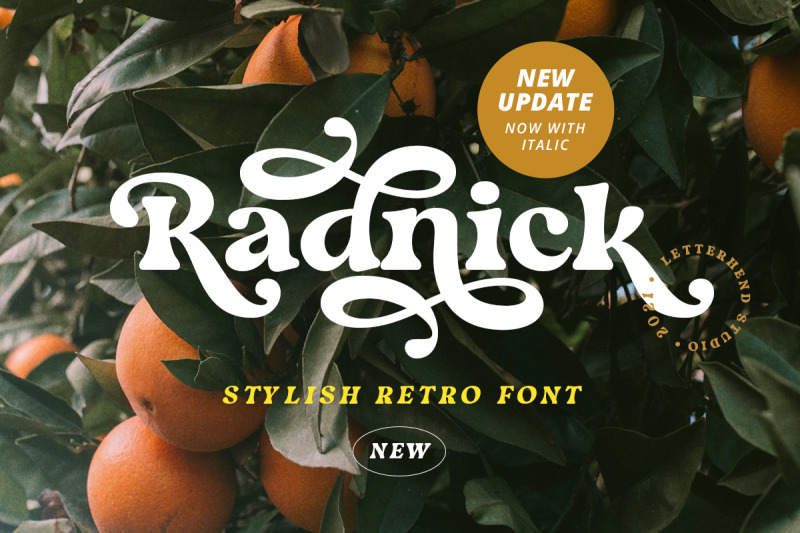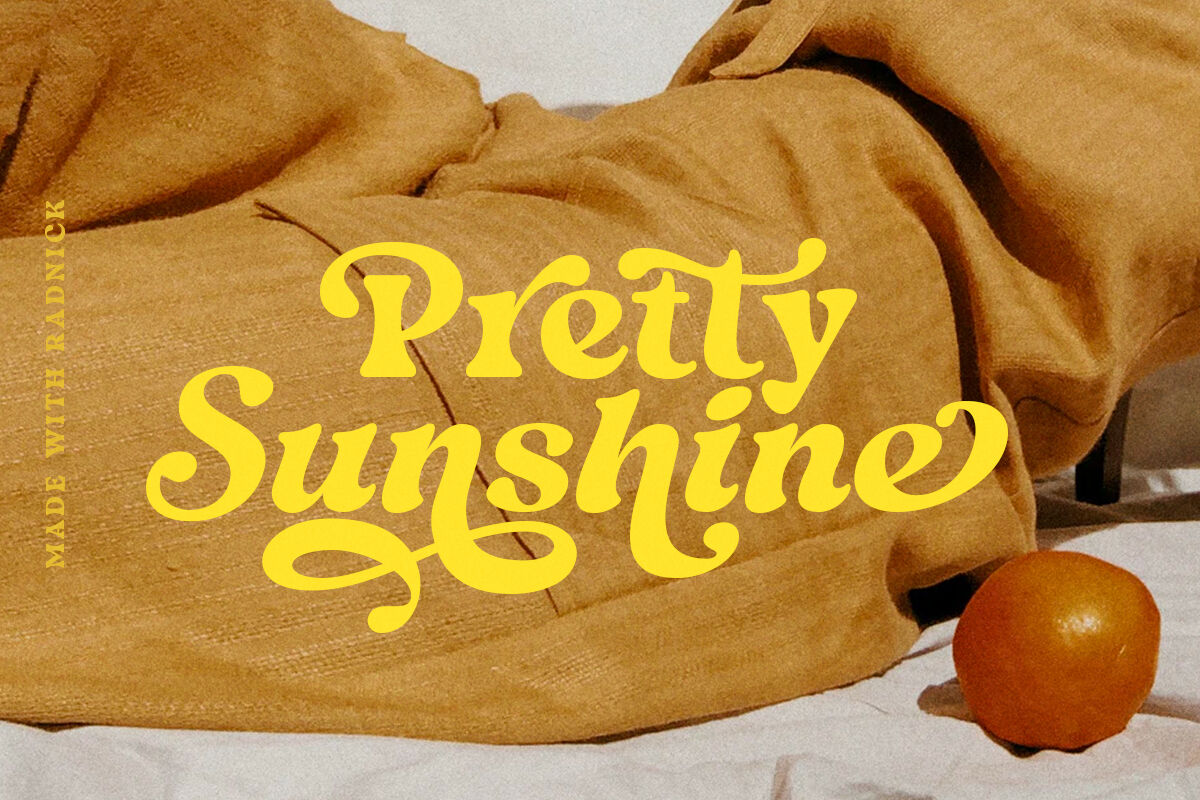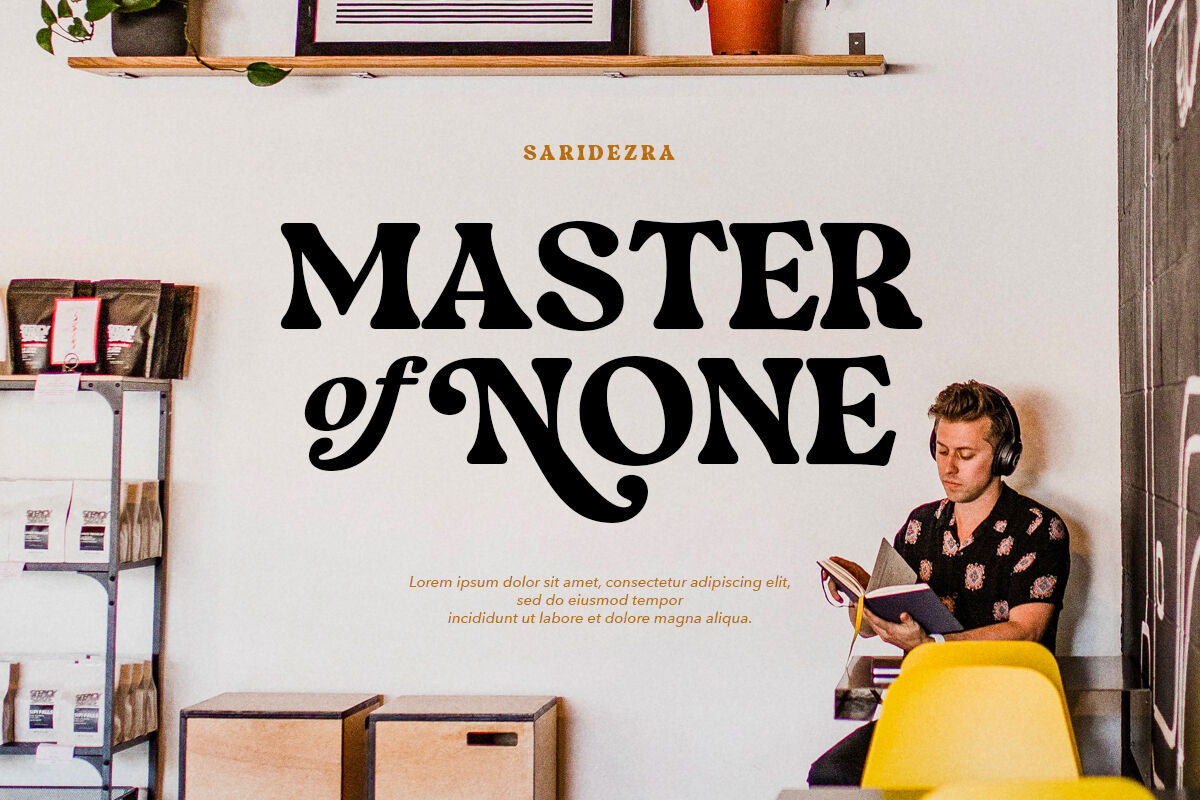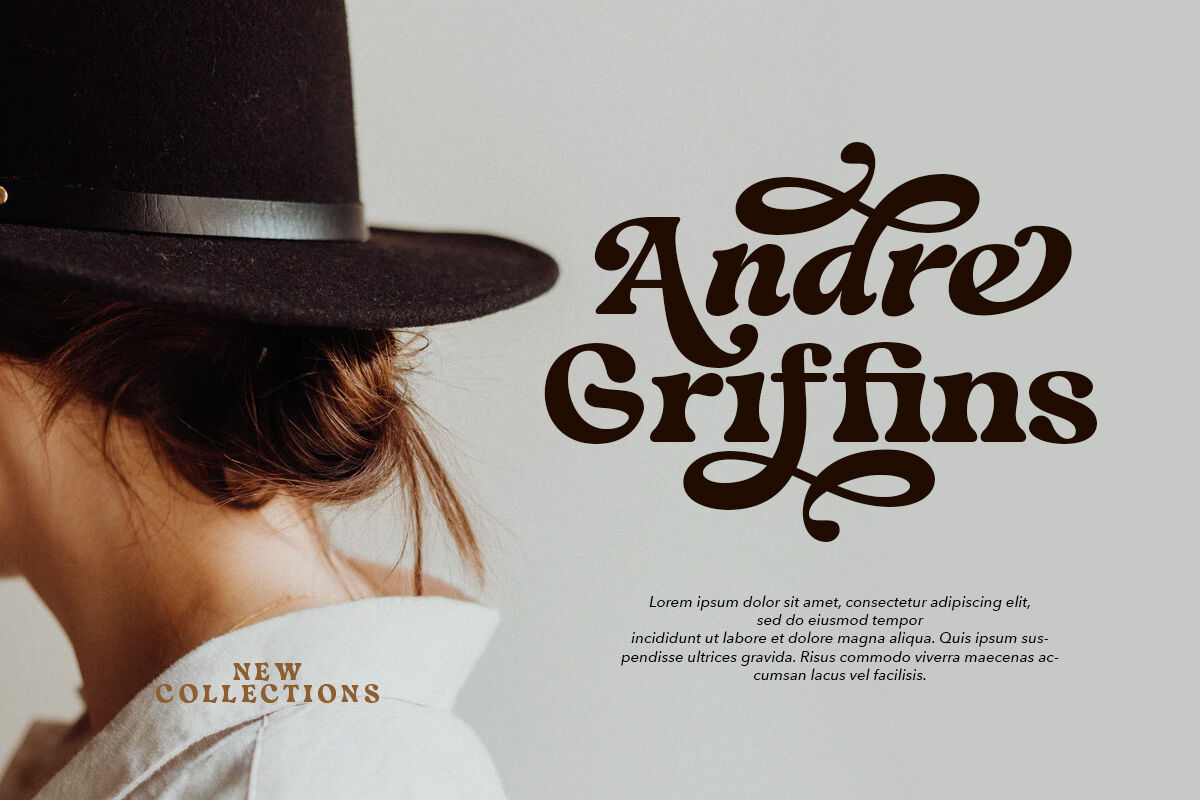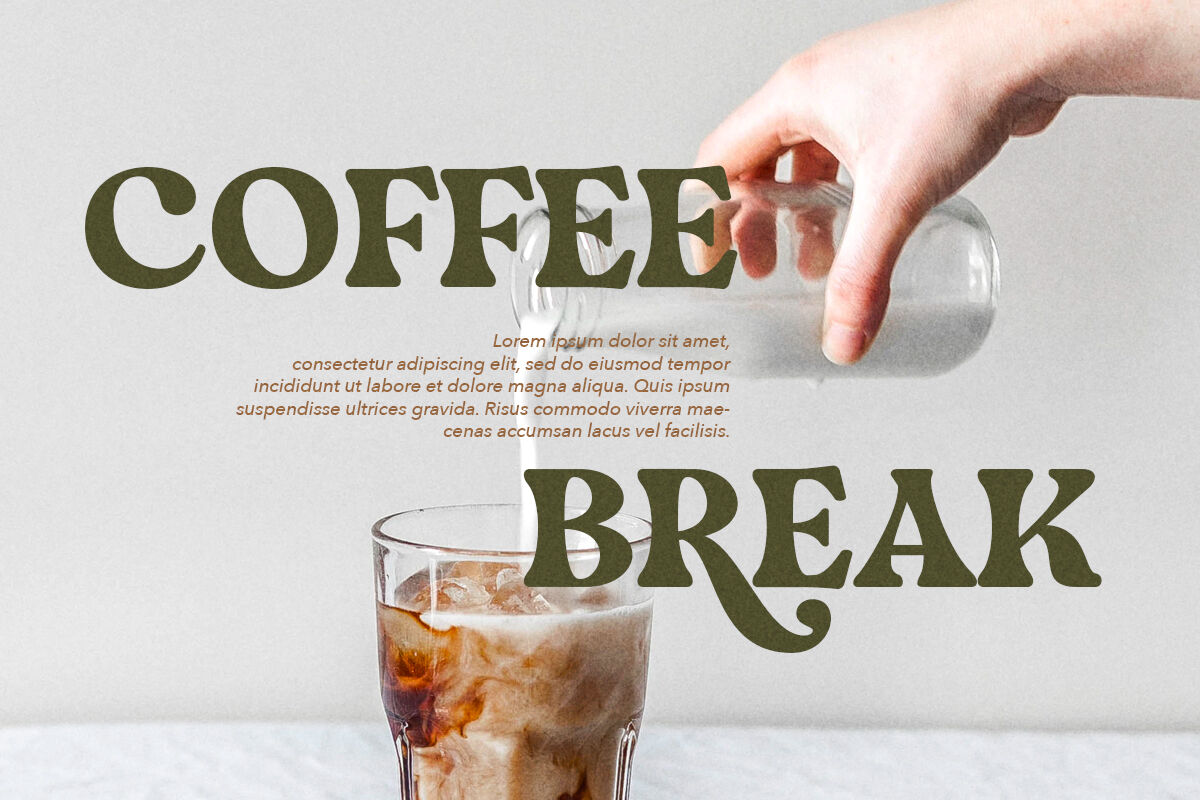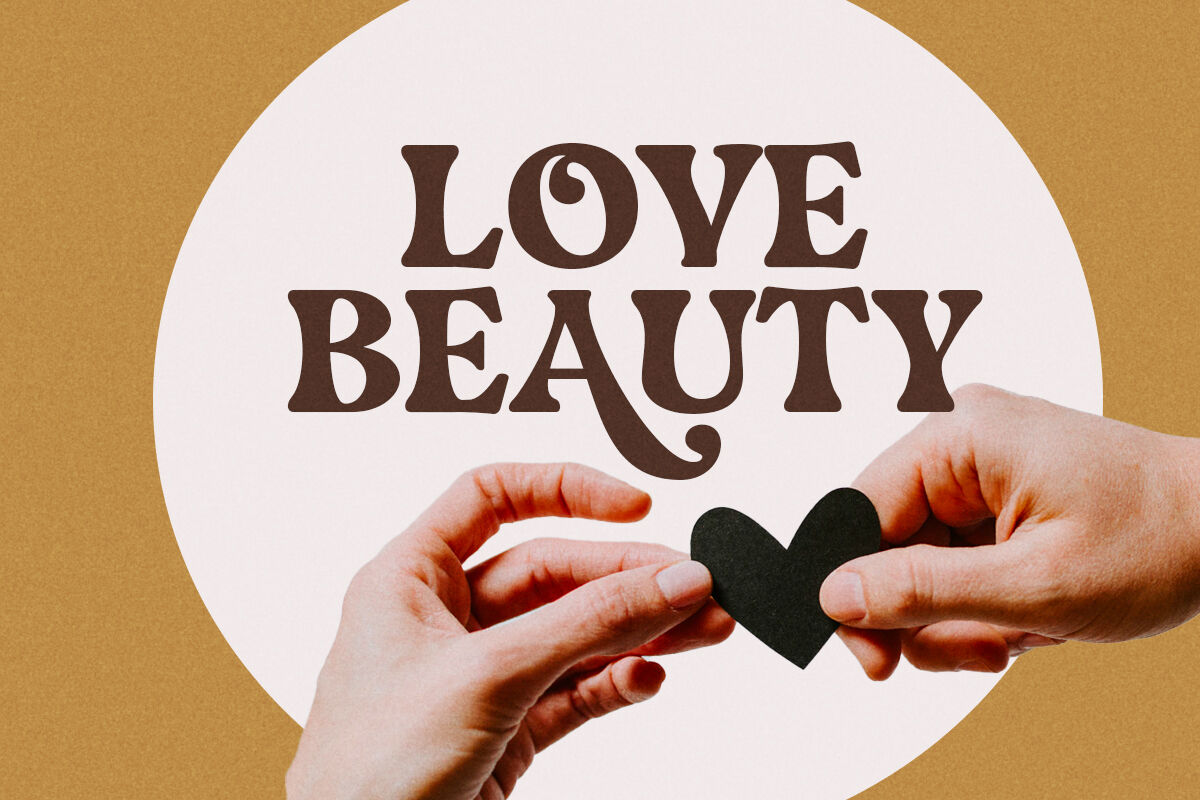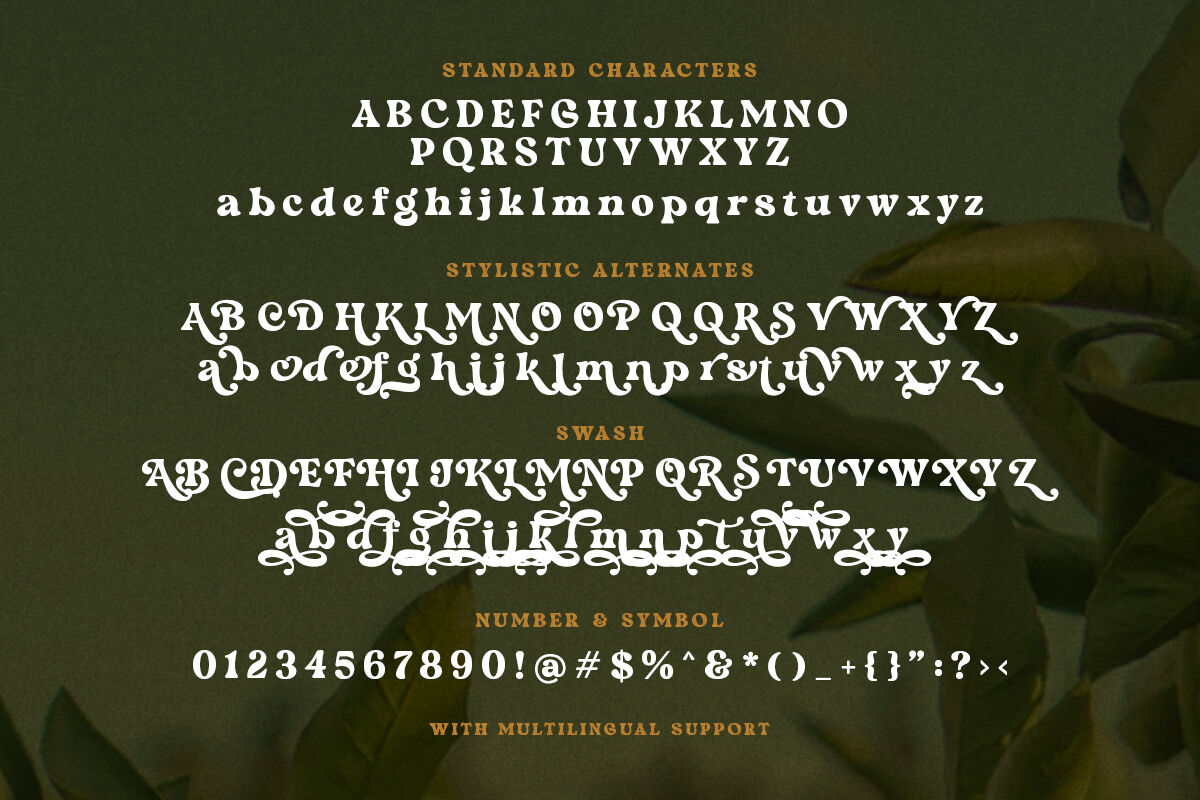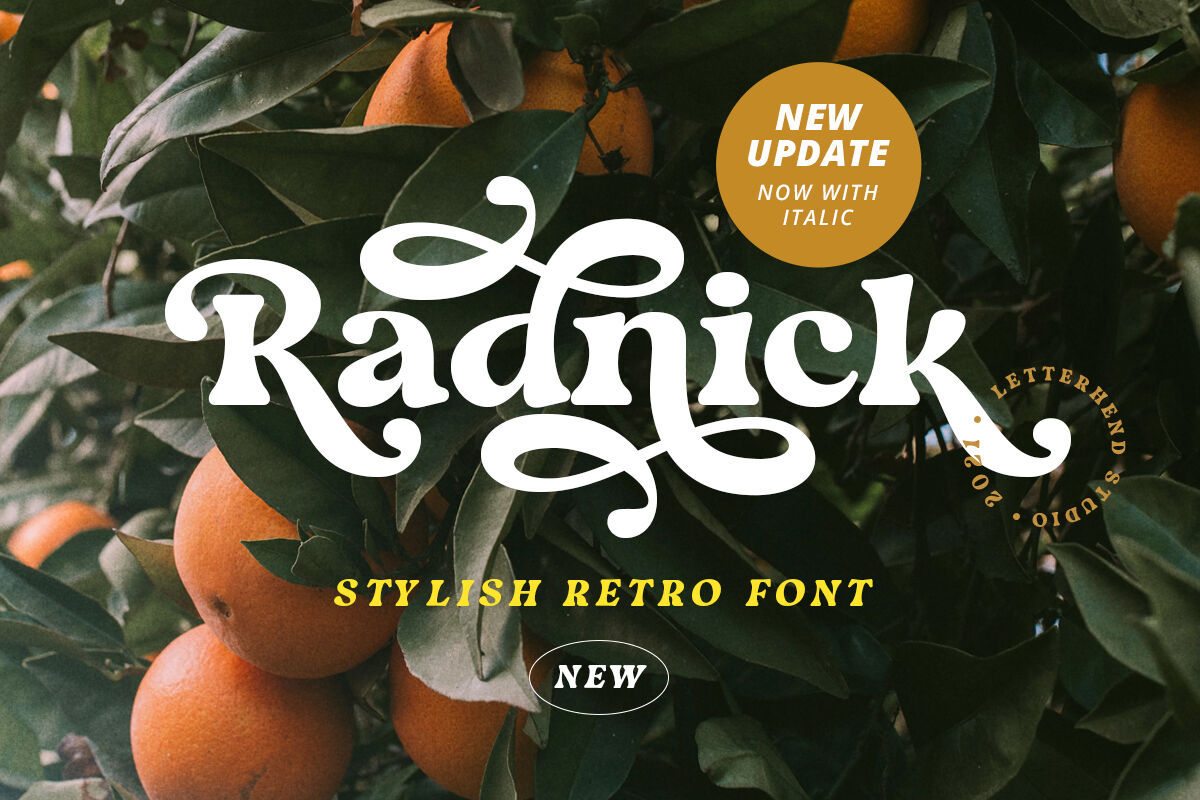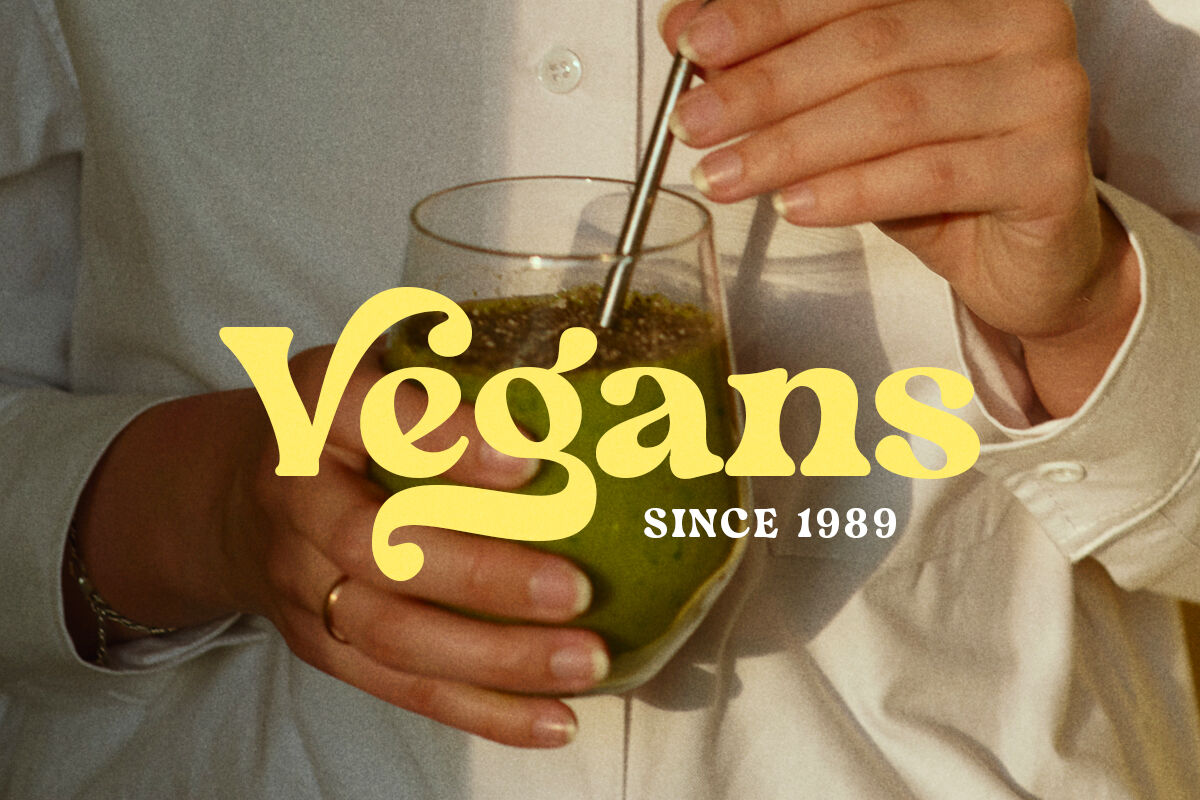
NOW UPDATE with italic version.
Radnick is a stylish retro font with swashes. The stylistic alternates and ligatures make this font event more unique and stands from the crowd, with 70s vibe. This font perfectly made to be applied especially in logo, and the other various formal forms such as invitations, labels, logos, magazines, books, greeting / wedding cards, packaging, fashion, make up, stationery, novels, labels or any type of advertising purpose.
Features :
uppercase & lowercase
numbers and punctuation
multilingual
alternates, swashes & ligatures